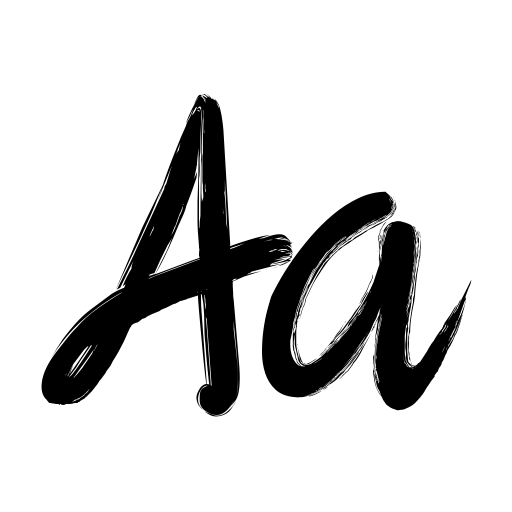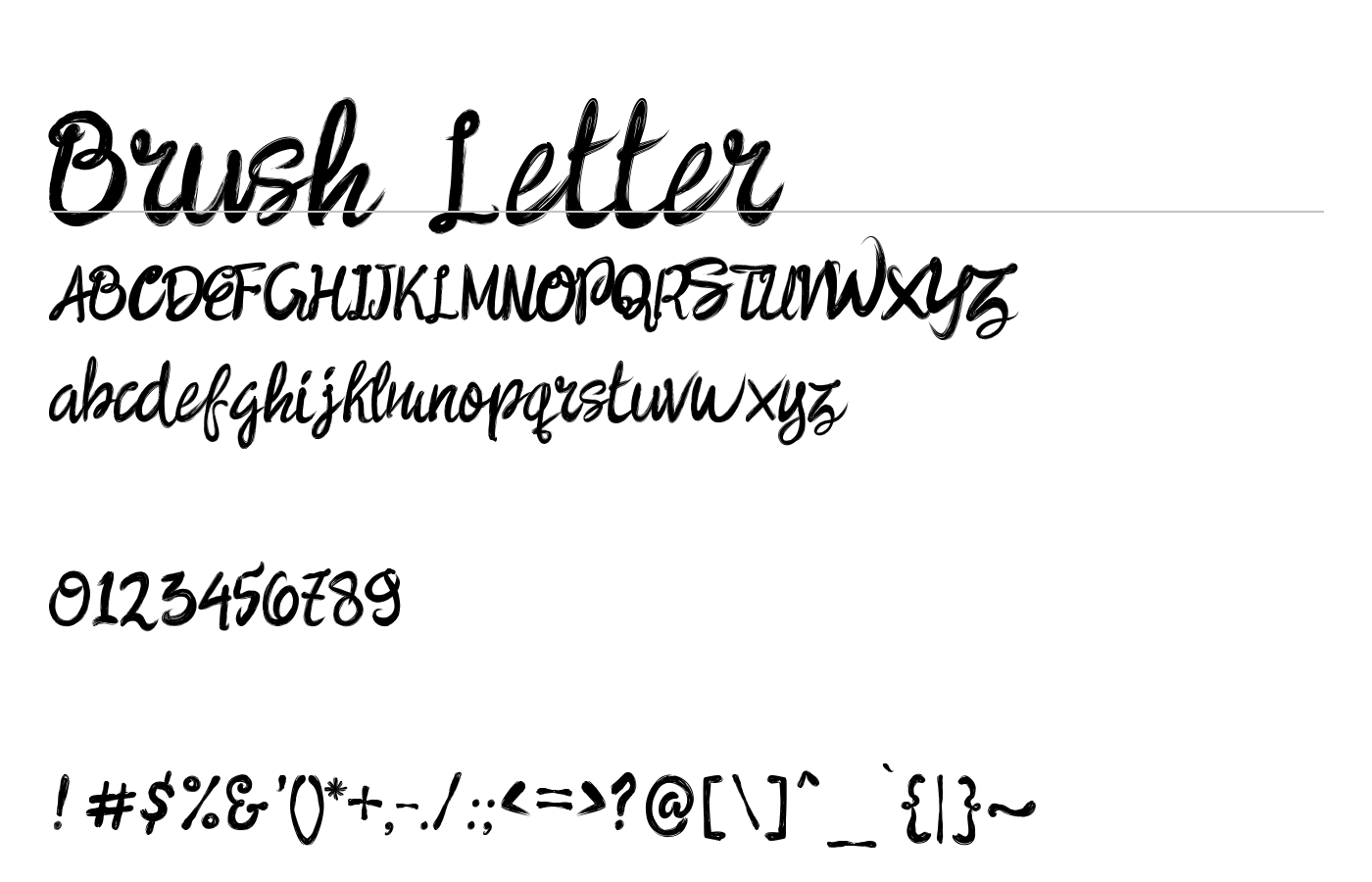
Brush Letter Font is a lively and expressive script font that mimics natural brush strokes with its fluid, hand-painted style. It features a medium weight with dynamic contrast, a casual yet artistic feel, and slightly irregular letterforms that add personality and warmth. This font works beautifully for creative branding, invitations, posters, and any design that benefits from a personal, handcrafted touch.
Brush Letter Font
About Brush Letter Font
| Font family | Brush Letter Font |
| Designer | Unicode Studio |